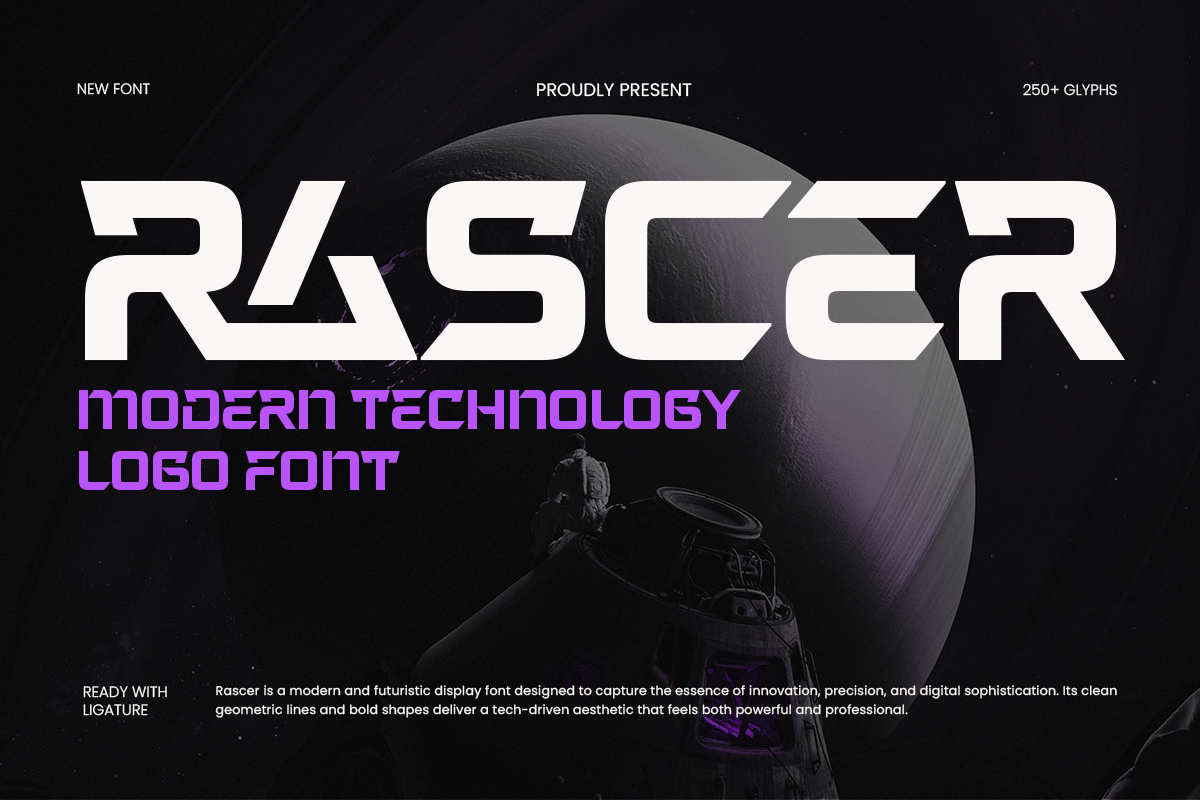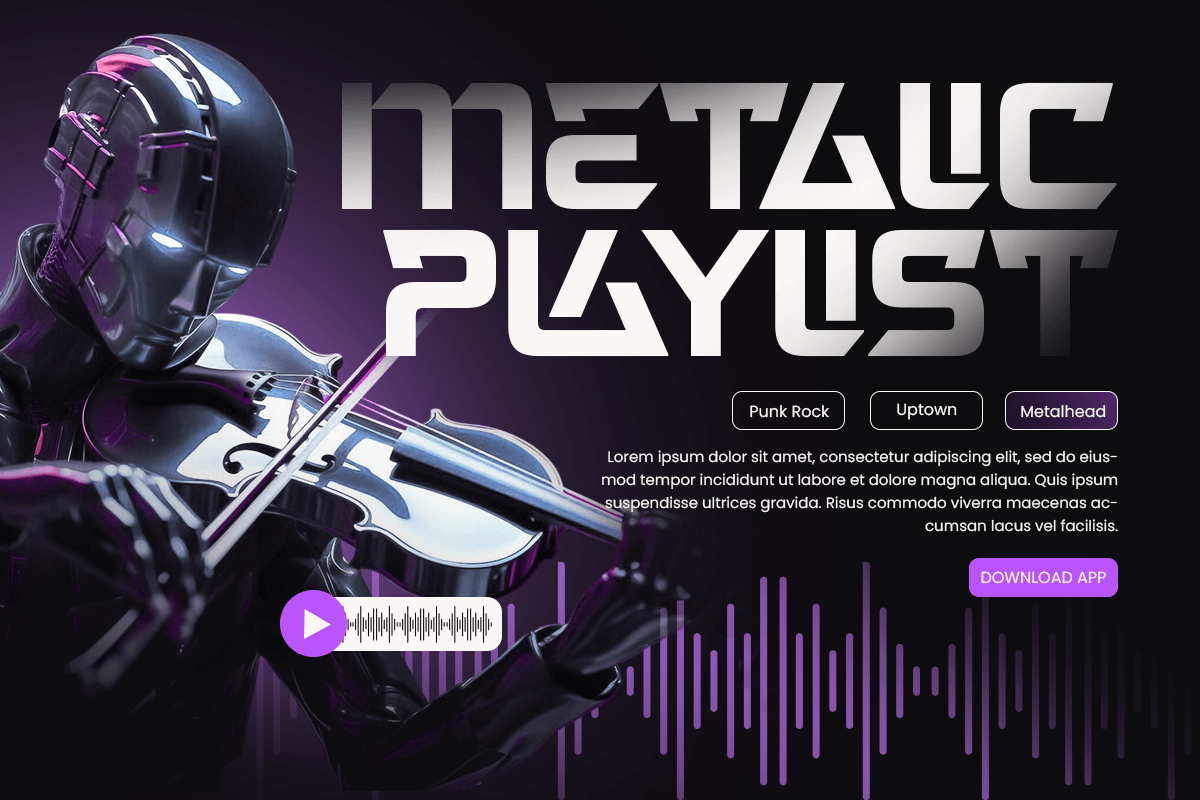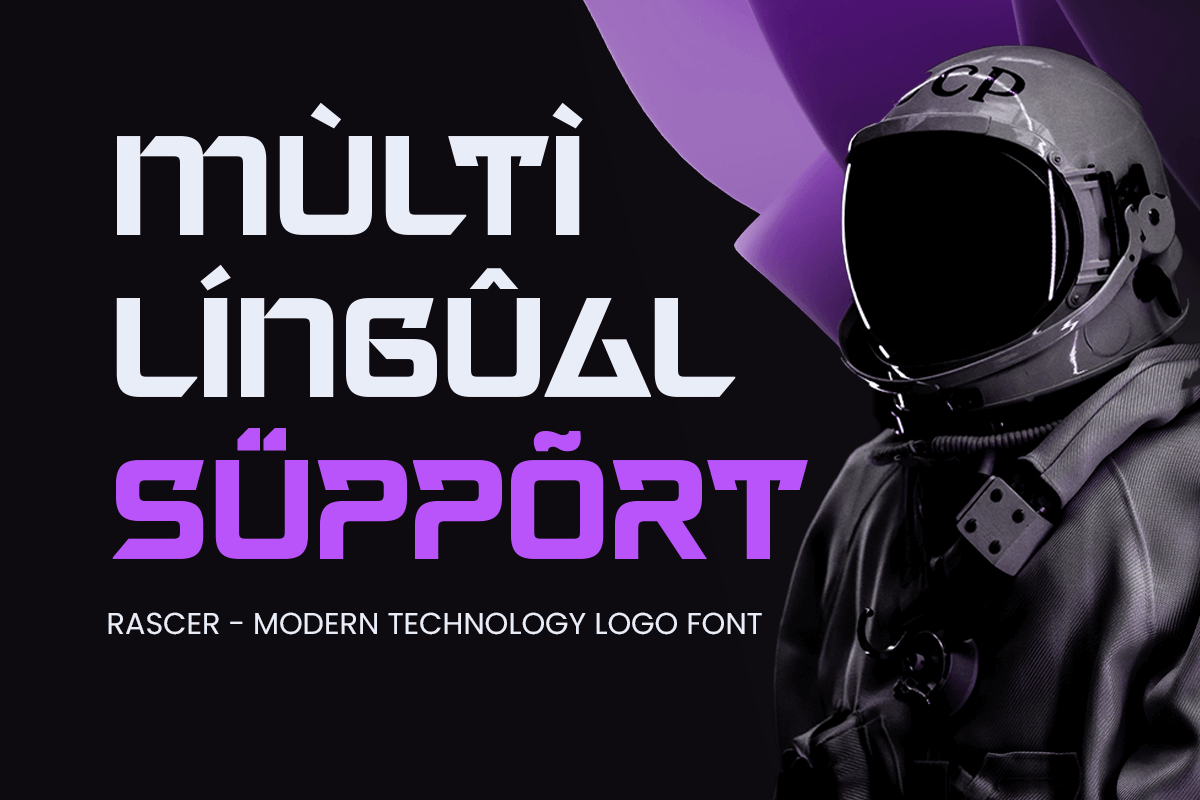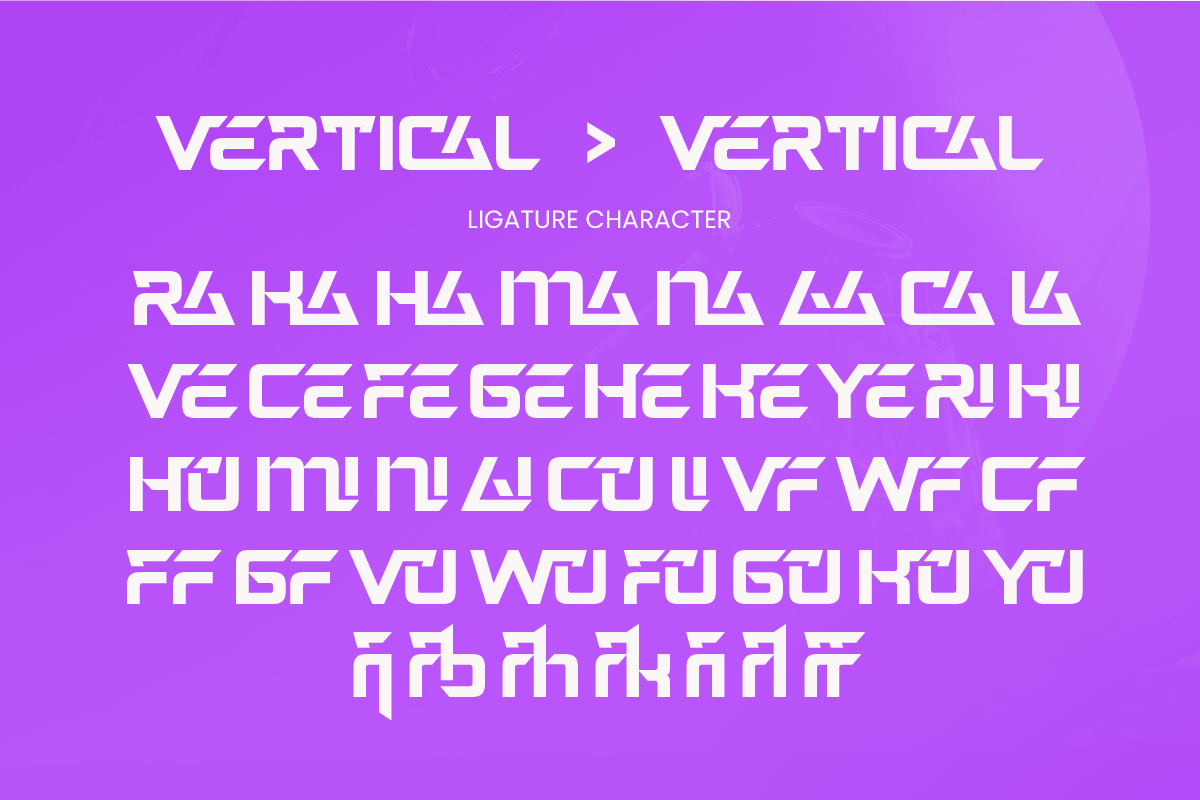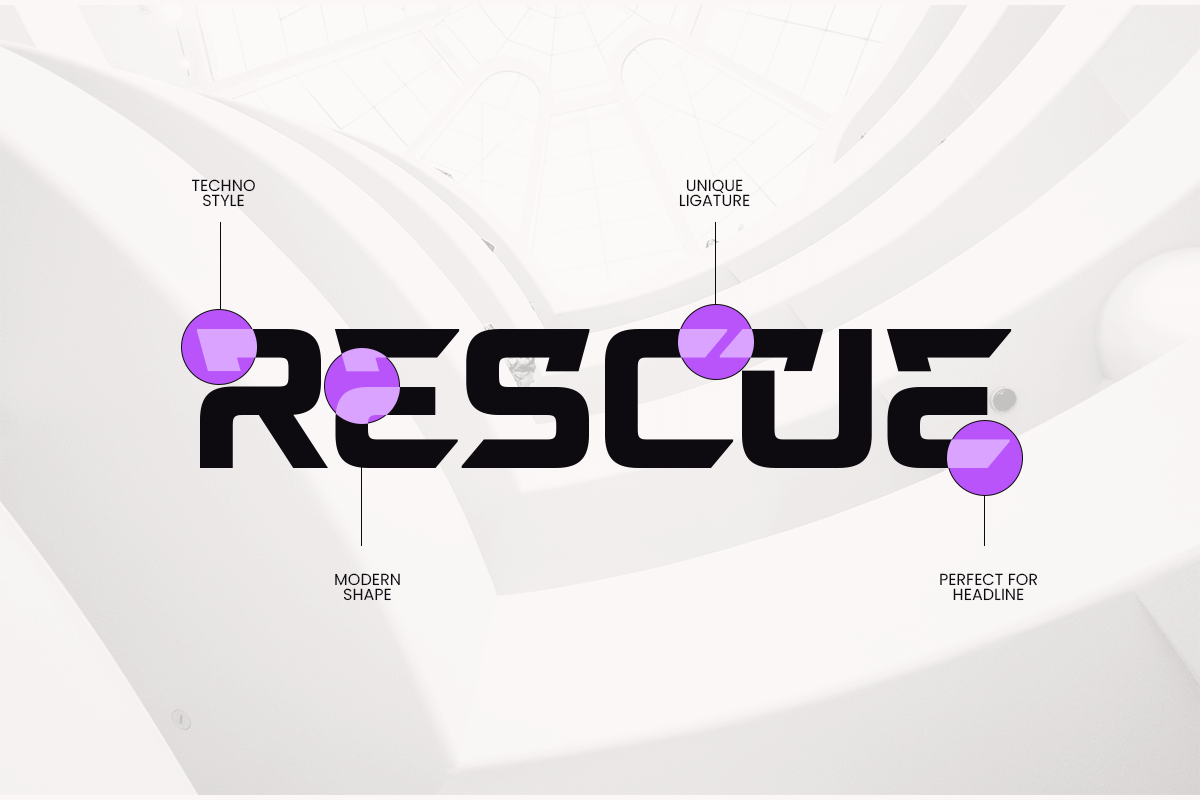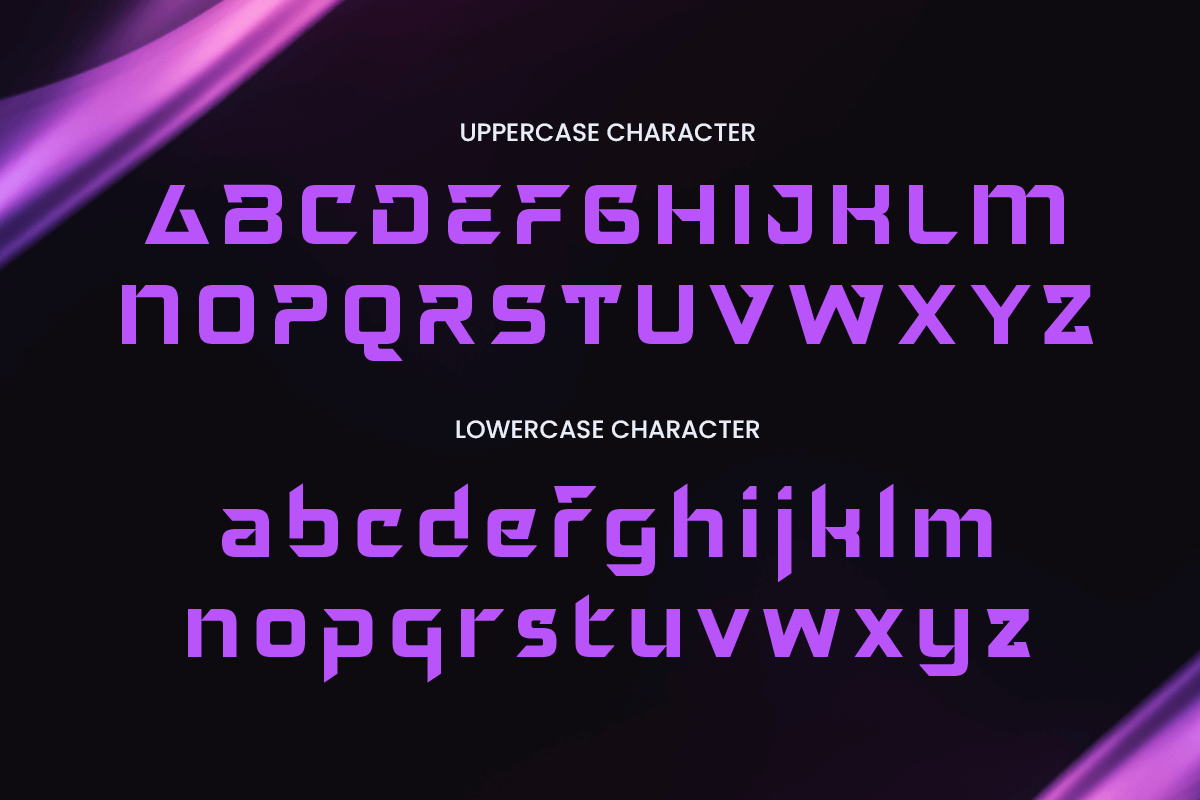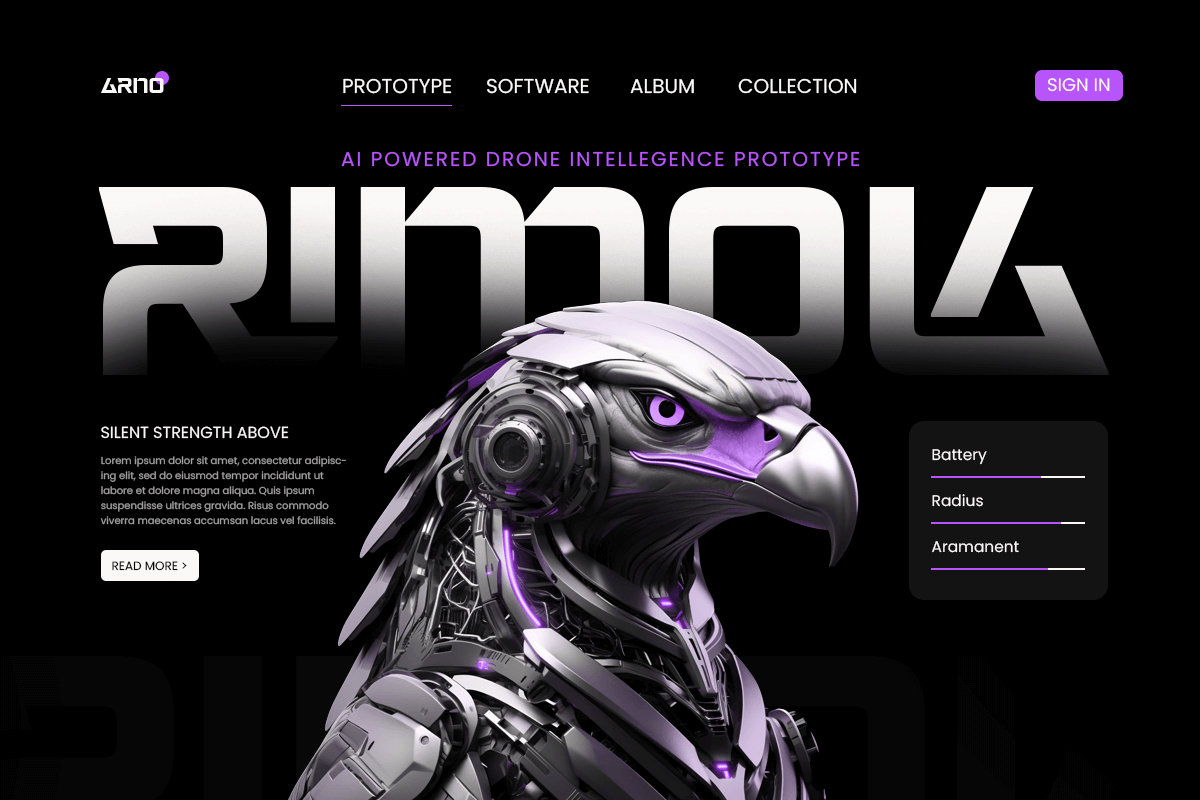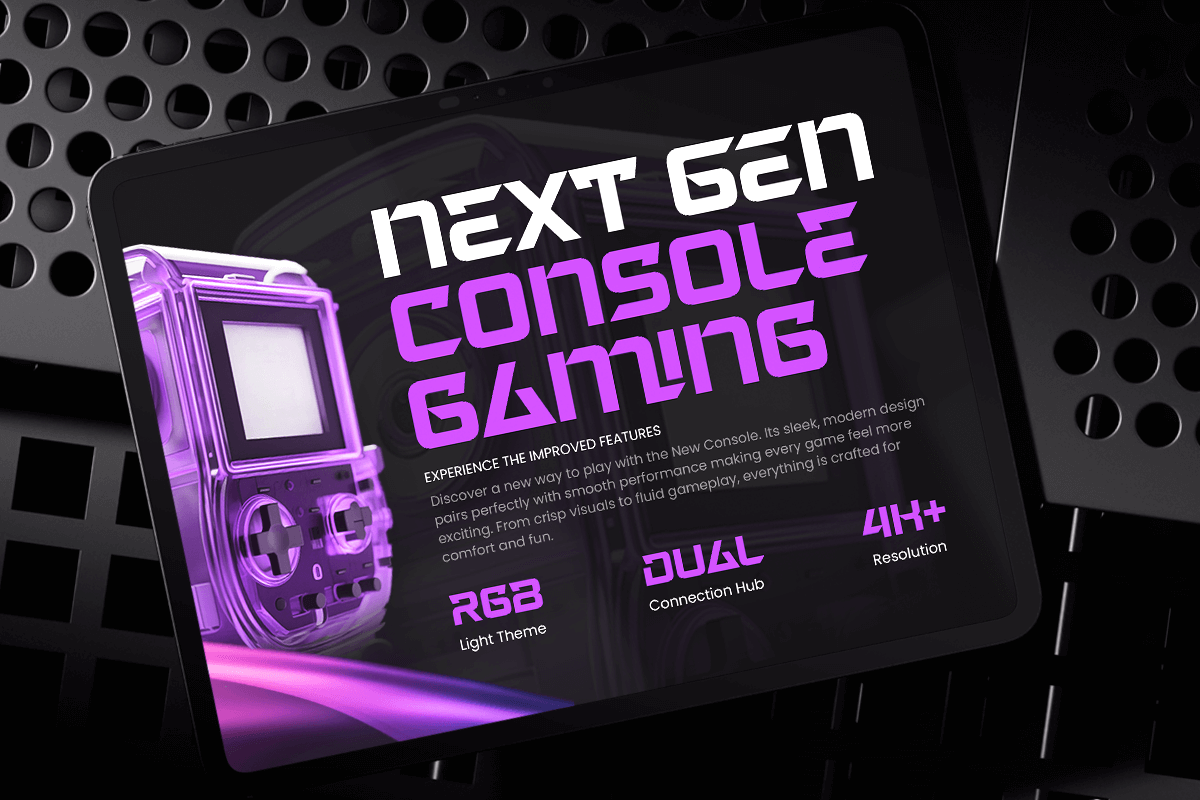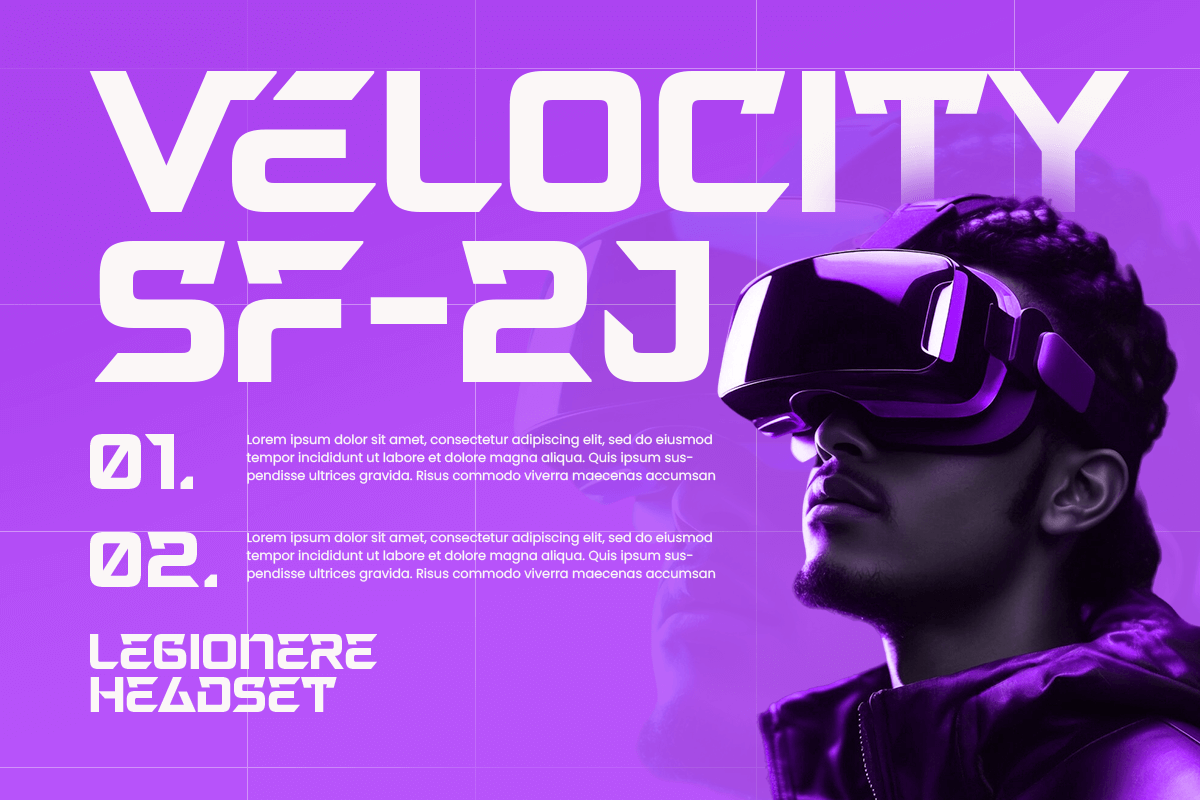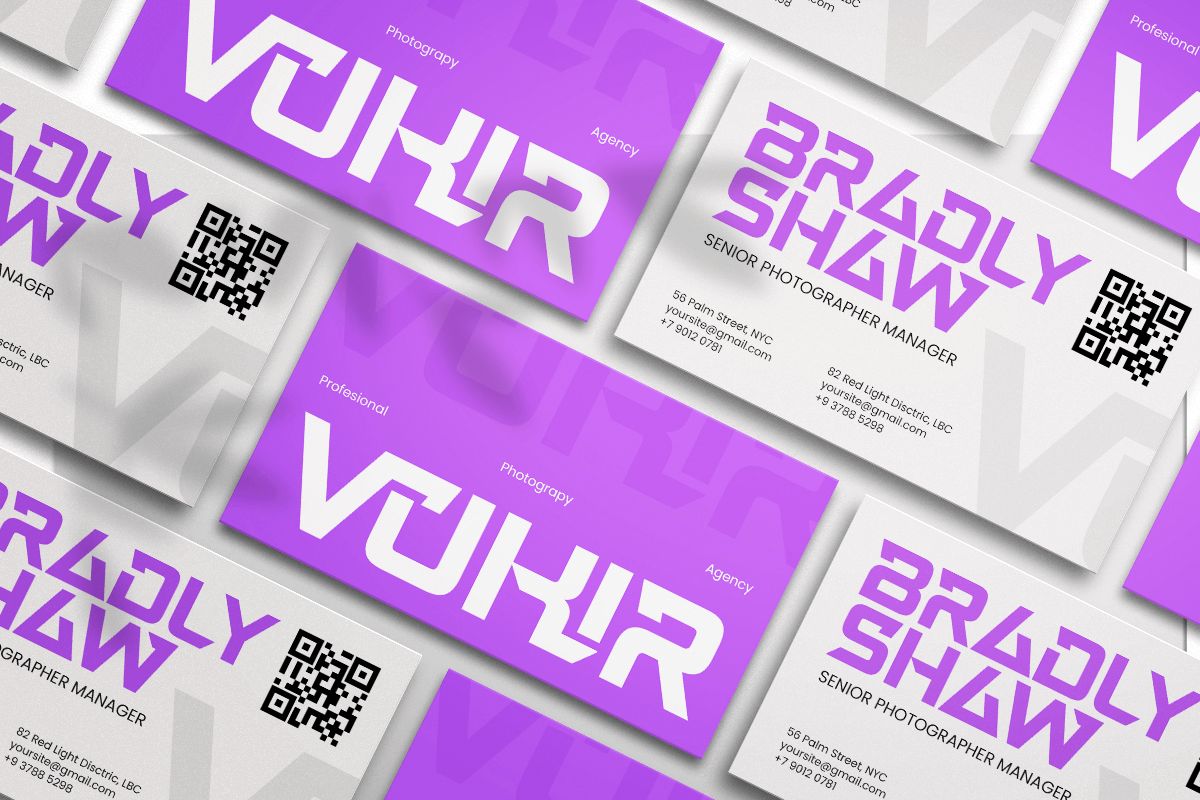
Rascer - Modern Technology Logo Font
Rascer – Modern Technology Logo Font
Rascer is a modern and futuristic logo font designed to represent innovation, speed, and digital precision. With its clean geometry, sharp edges, and tech-inspired structure, Rascer is perfect for technology branding, startups, software companies, gaming projects, and modern digital products.
Built to deliver clarity and impact, Rascer ensures strong readability while maintaining a bold technological character. Its modern construction makes it ideal for logos, app branding, UI/UX interfaces, product identities, and corporate technology visuals that require a confident and forward-thinking style.
Rascer – Modern Technology Logo Font Features:
* Modern technology style with clean geometric letterforms
* Ideal for logos, tech branding, startups, and digital products
* Uppercase, lowercase, numerals, and punctuation included
* Optimized kerning for professional logo presentation
* Perfect for futuristic, innovative, and modern design projects
Upgrade your brand identity with Rascer – the modern technology logo font built for innovation and digital excellence.